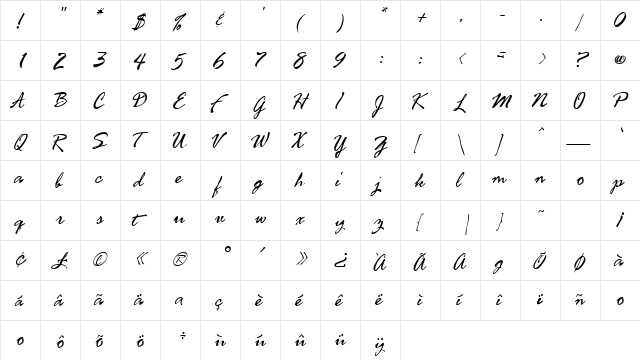
FreshScript Regular
Design Context for FreshScript Typeface
FreshScript brings a calligraphic fluidity to the page — its connecting strokes and expressive curves give it an unmistakably human quality.
Font Pairing: Combine FreshScript with a simple geometric sans for maximum contrast — the tension between flowing curves and clean structure is a classic typographic pairing.
Pro Tip: Use FreshScript for short runs of text — names, titles, or taglines. Extended body copy in script faces tires the eye quickly.